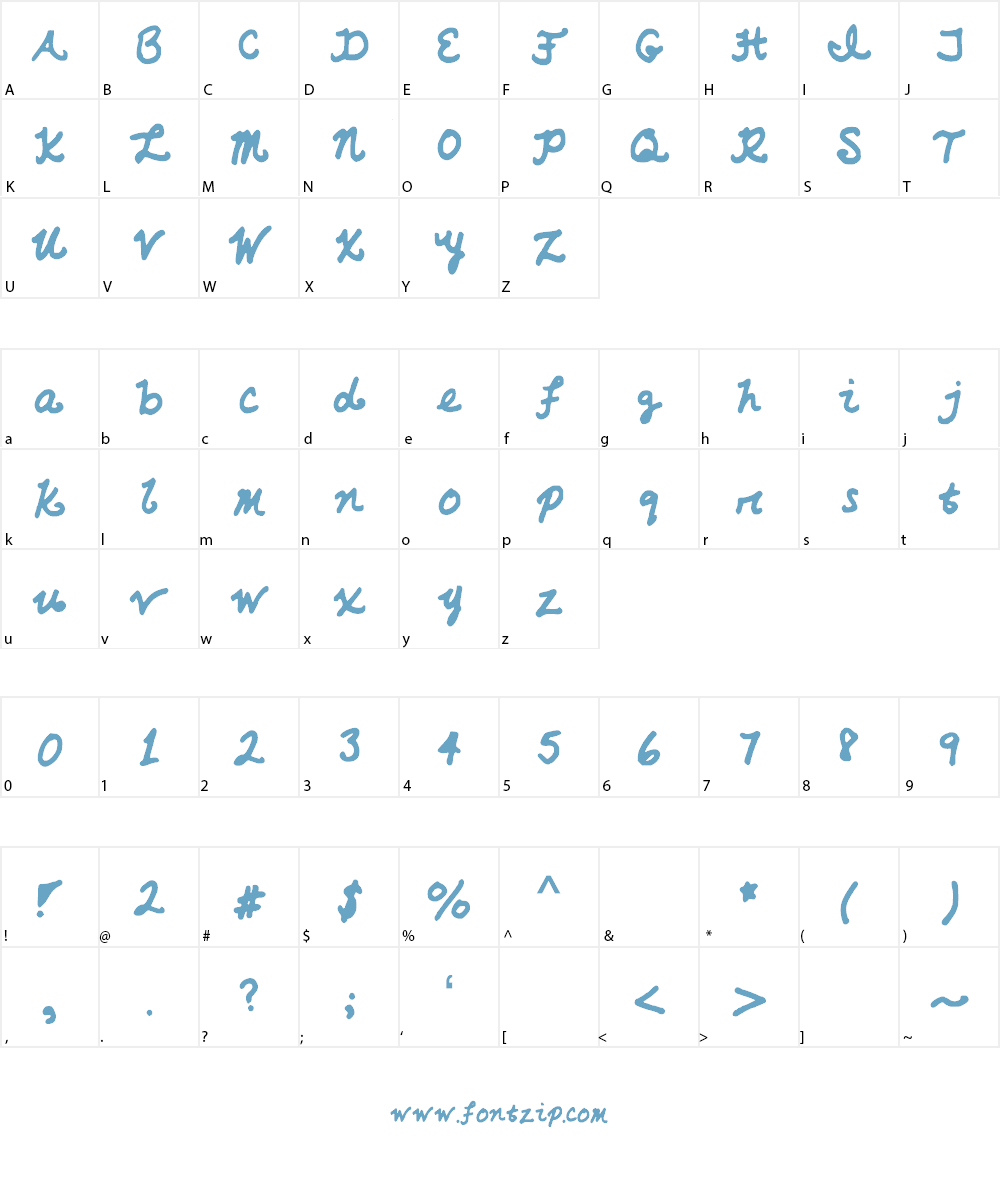
This is a simplified version of Azzur Superstar and a fancier version of my own handwriting - I thought it looked very pretty and whimsical so that's how I came up with the name! :) I hope you like it!